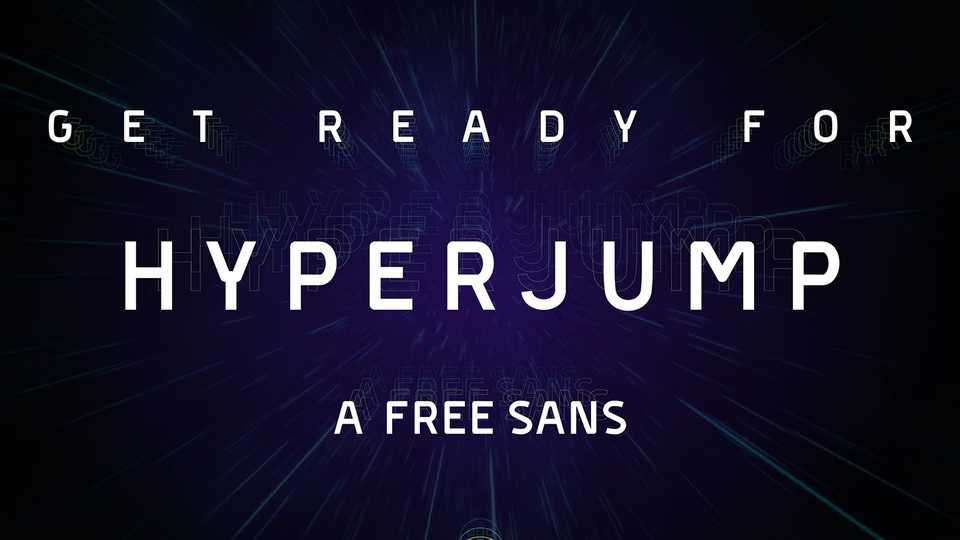
Download Hyperjump typeface, a modern and futuristic sans serif font family in 6 weights with corresponding Obliques. Hyperjump font is suitable for games, apps, web and other contemporary projects.
Designer: Toufique Islam